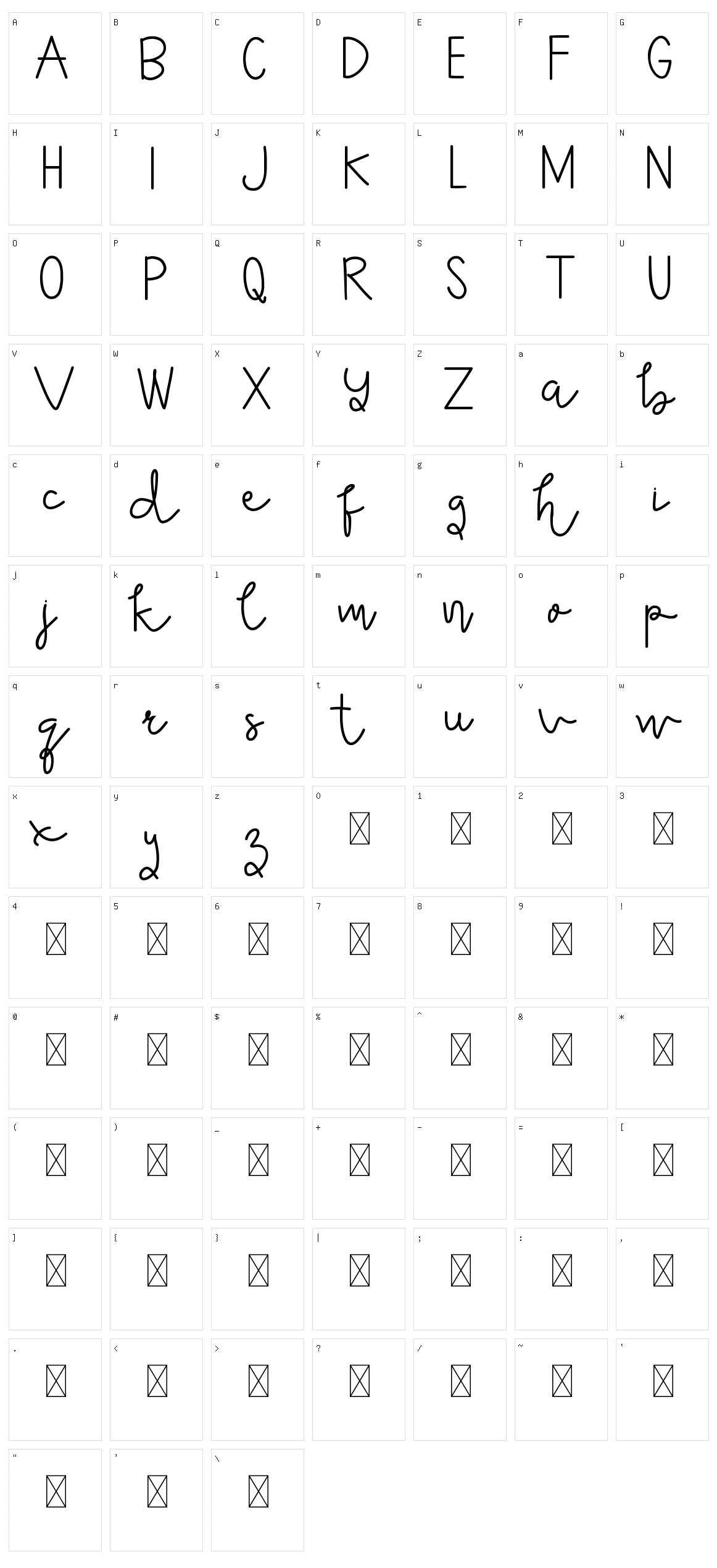
The free font Wavaca is carefully designed by Edric Studio, showcasing a thoughtful balance of creativity and usability and falls under the Script font style. When you download the ZIP file, it contains only 11.24 KB of font files, making it lightweight and quick to download. Please review the license details below to understand permitted usage and distribution rights. If license information is not available, we recommend using this font for personal projects only or contacting the author directly for commercial usage permissions.